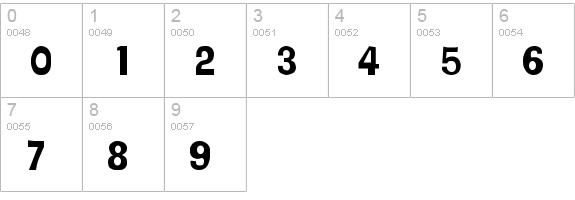
AdSix Type is a demo font in the Fancy > Comic category, designed by goynov. It has been downloaded 3 times and is available for Windows, Mac and Linux.
AdSix Type font is a modern and versatile typeface that exudes elegance and sophistication. With its clean lines and sleek design, AdSix Type is perfect for a wide range of design projects, from branding to editorial layouts. The font features a unique blend of classic and contemporary elements, making it a timeless choice for any creative endeavor.